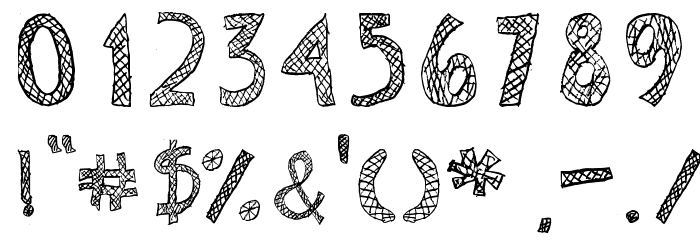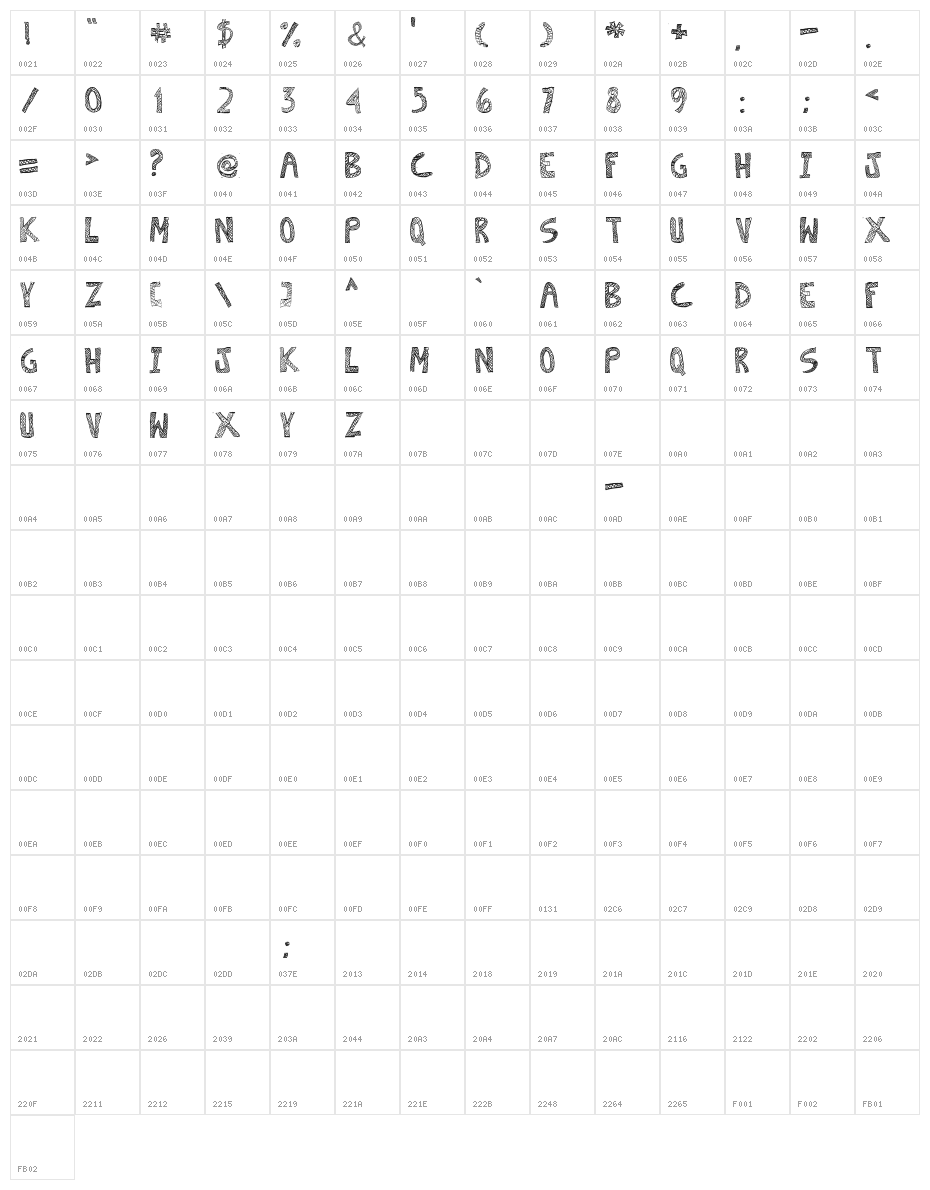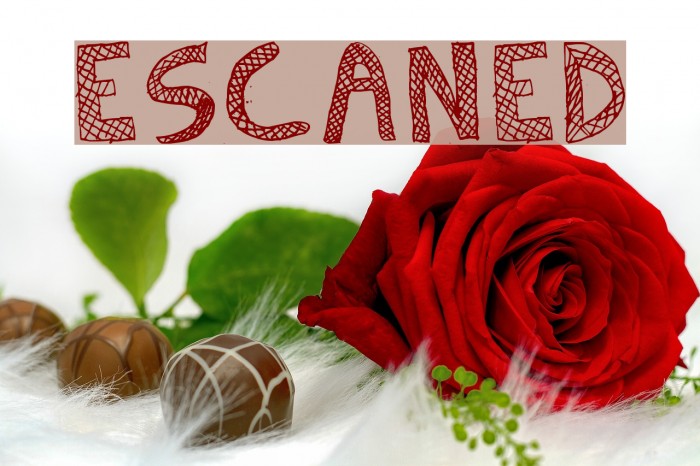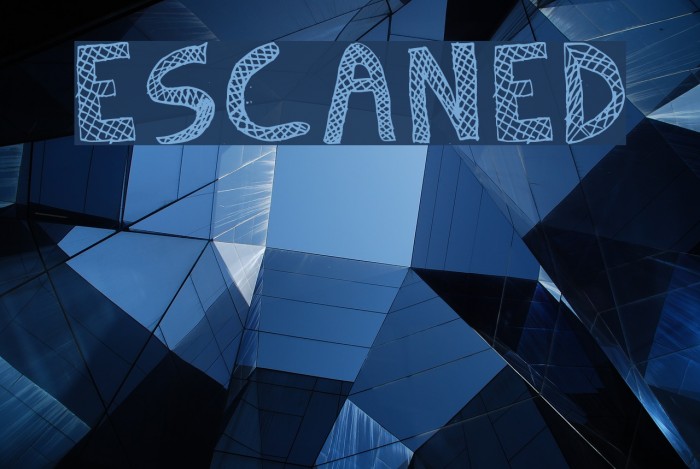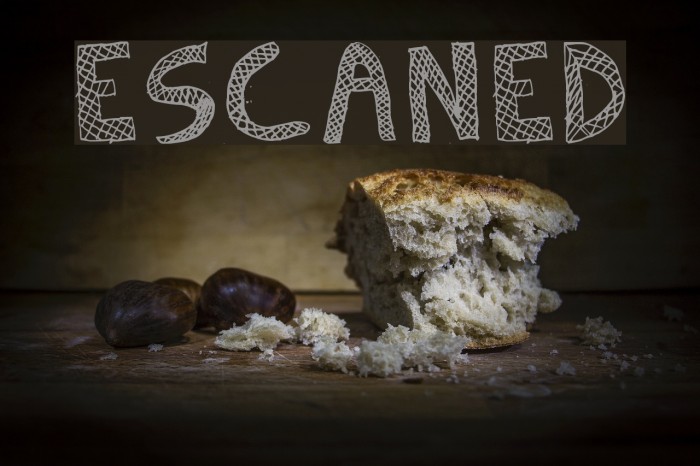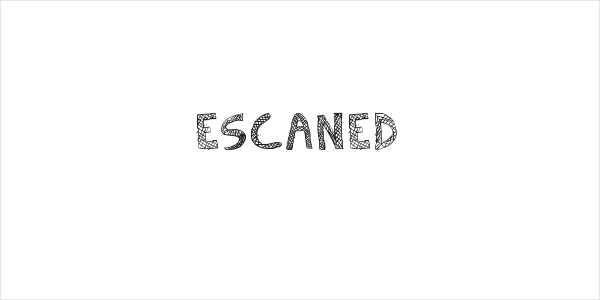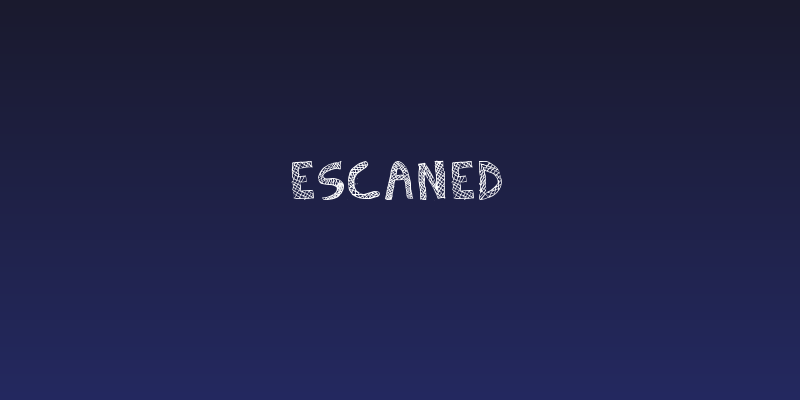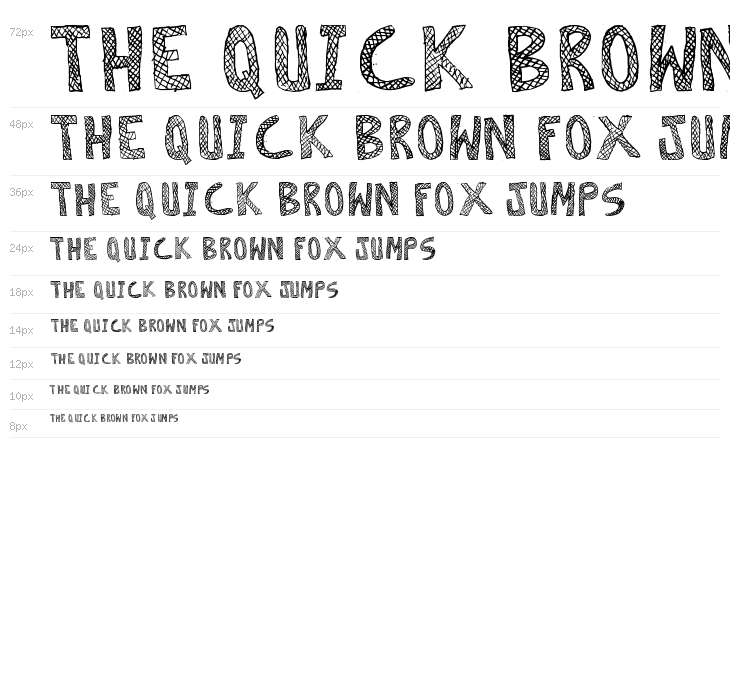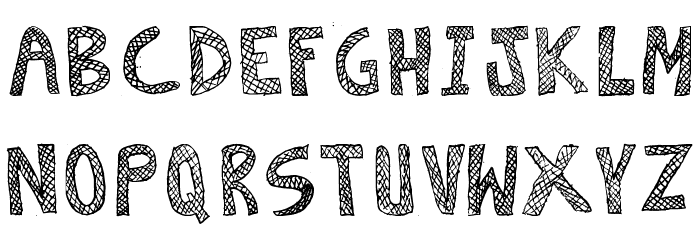
Escaned Font
Escaned Description
This font features a unique, hand-drawn style with a textured, cross-hatched pattern filling each character. The letters are bold and playful, with a slightly irregular shape that adds to their charm. The uppercase and lowercase letters maintain a consistent style, while the numbers and special characters are equally distinctive. The font's decorative nature makes it stand out, offering a creative and artistic vibe. It's perfect for projects that require a touch of whimsy and individuality, such as children's books, creative posters, or artistic branding.
| Proposed Projects | Ideal for children's books, creative posters, and artistic branding. |